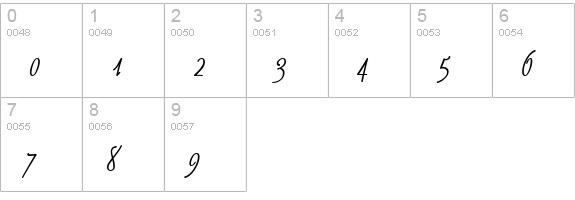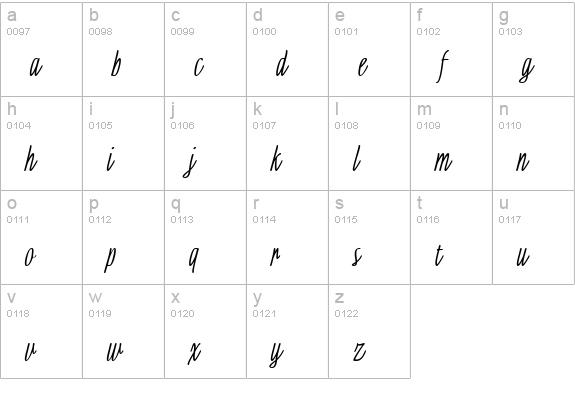
Fineline Macro Font Details
Fineline Macro font is a sophisticated and elegant typeface that exudes modernity and refinement. Its sleek, thin lines and intricate details make it perfect for adding a touch of sophistication to any design project. Whether you're creating branding materials, invitations, or editorial content, Fineline Macro font is sure to elevate your work to the next level. What sets Fineline Macro font apart is not only its exquisite design but also the fact that it is freely available to download at FontsMarket.com. This means that you can access this stunning font without any cost, making it a valuable addition to your font collection. With its clean and crisp appearance, Fineline Macro font is versatile and can be used in a variety of design applications. Its legibility and elegance make it ideal for both print and digital projects, ensuring that your message is delivered with style and sophistication. Add a touch of class to your designs with Fineline Macro font and experience the beauty of this free font available at FontsMarket.com. Let your creativity shine with this exquisite typeface that is sure to captivate and impress your audience.